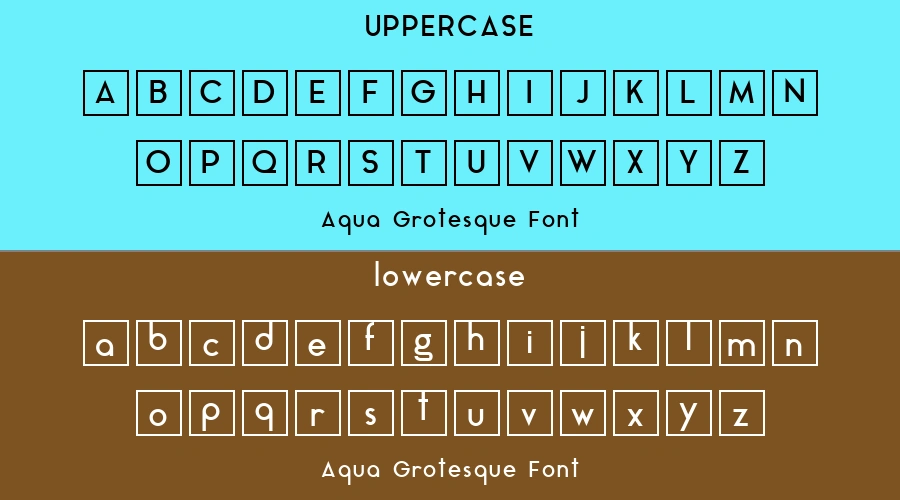
About Aqua Grotesque Font
Aqua Grotesque Font stands out for its distinctive combination of subtle details and visual comfort. Ideal for corporate communications, it provides the durability and cultural relevance that professional projects demand. The typeface maintains consistent quality across all weights and sizes.
Key features include refined calligraphic influence and practical contextual alternates, enhancing typographic expression. In marketing collateral applications, Aqua Grotesque Font demonstrates exceptional readability. The aperture size and scientific authority contribute to its distinctive character and professional appeal.